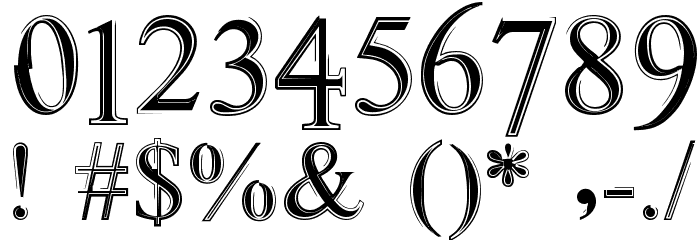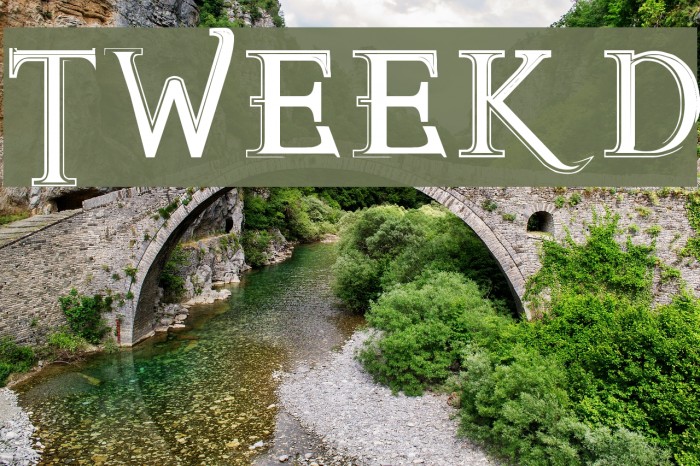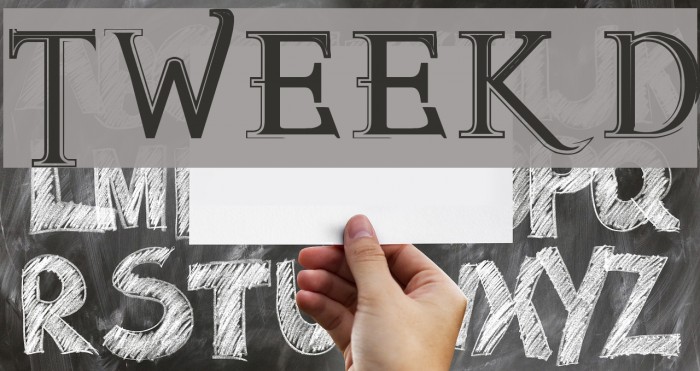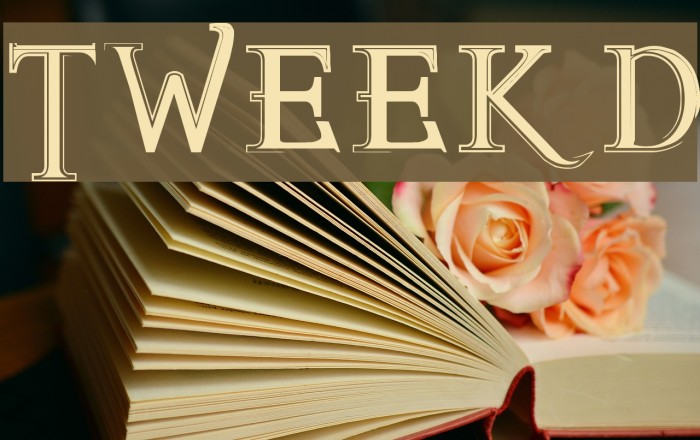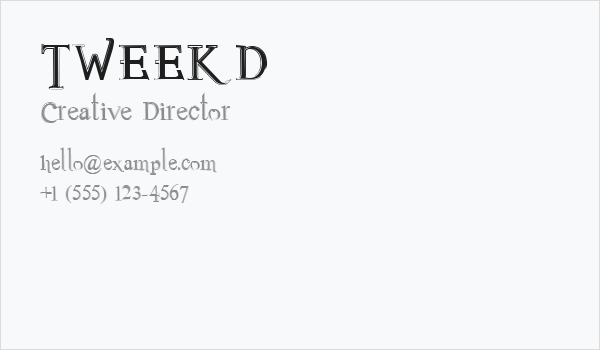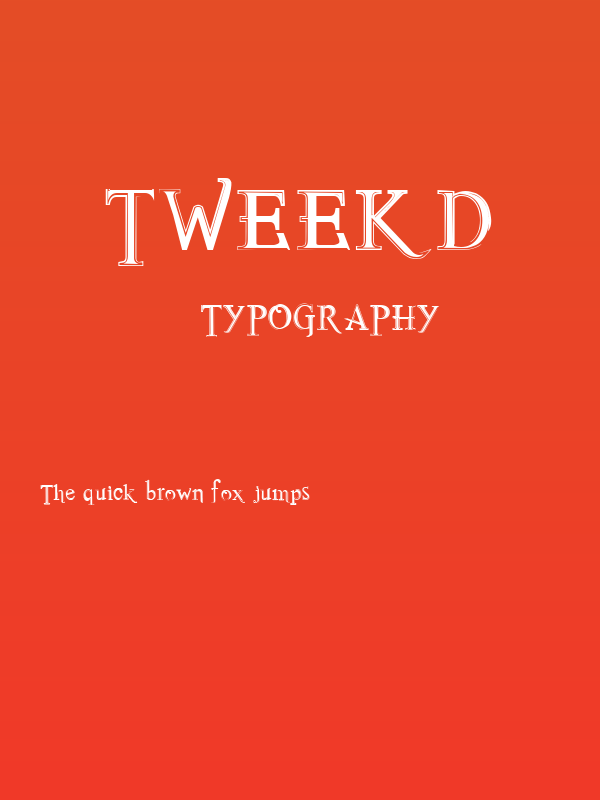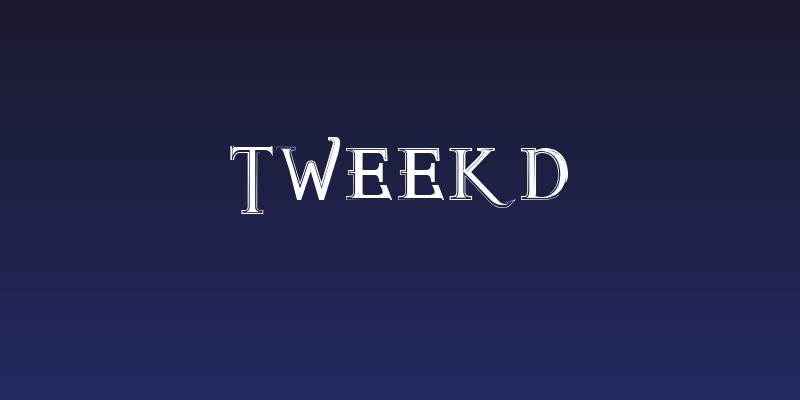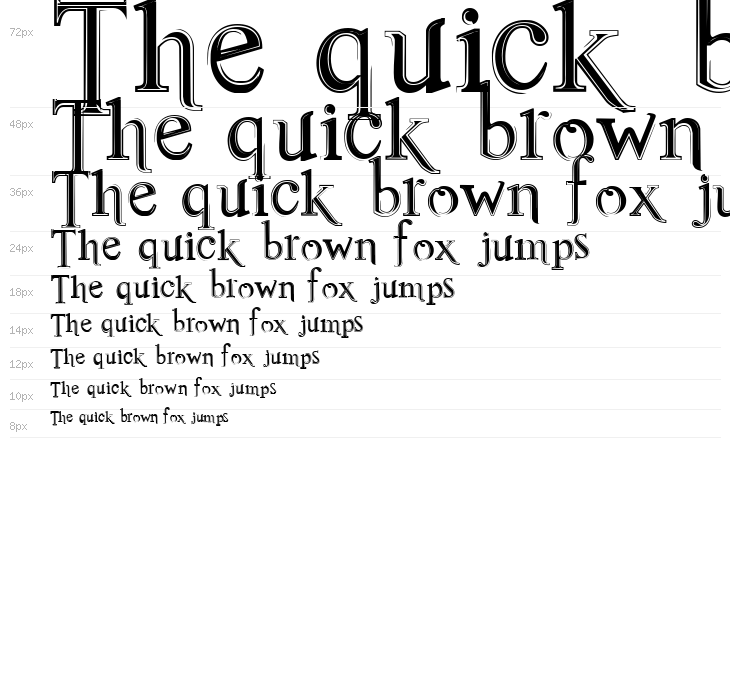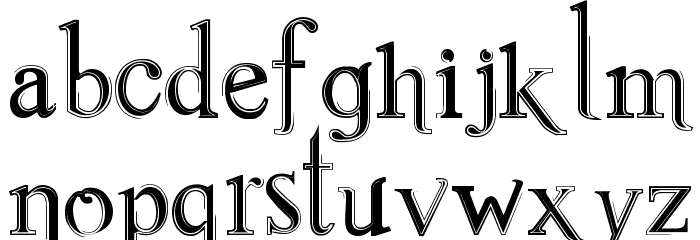
TWEEKD Font
TWEEKD Description
This font features a unique blend of classic serif elements with a modern twist, characterized by its bold strokes and intricate detailing. The uppercase letters are designed with a strong presence, while the lowercase letters maintain a graceful flow, making it versatile for various design needs. The numerals are distinct and easily readable, with a touch of elegance that complements the overall style. Special characters are thoughtfully crafted to maintain consistency with the font's aesthetic, ensuring a cohesive look across all text elements.